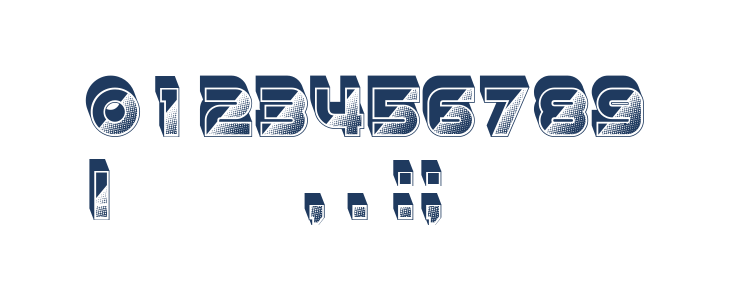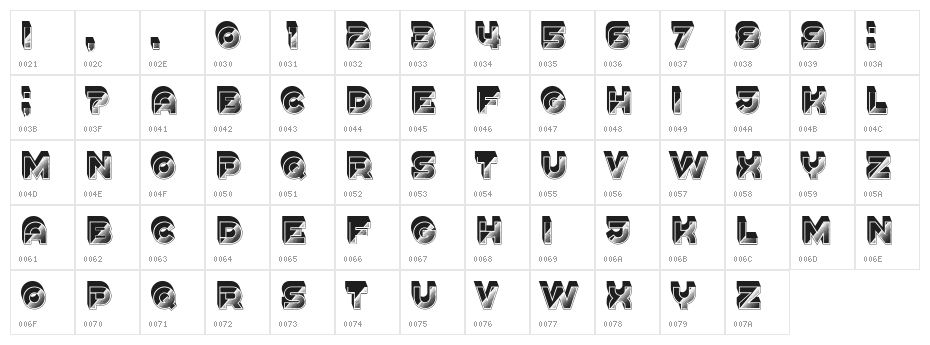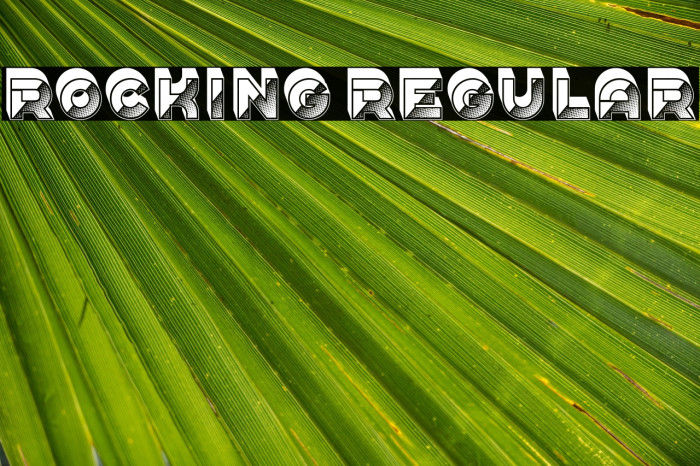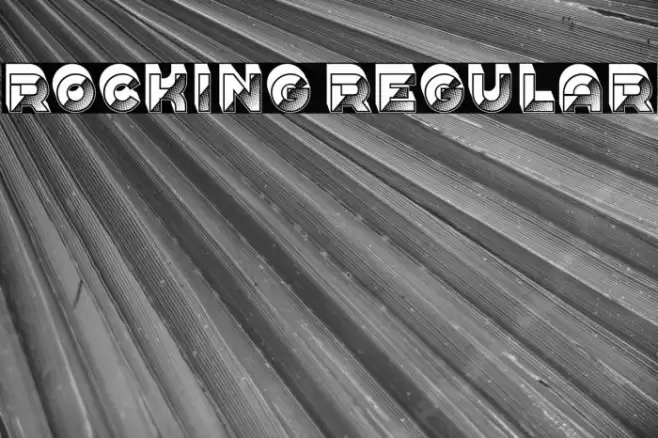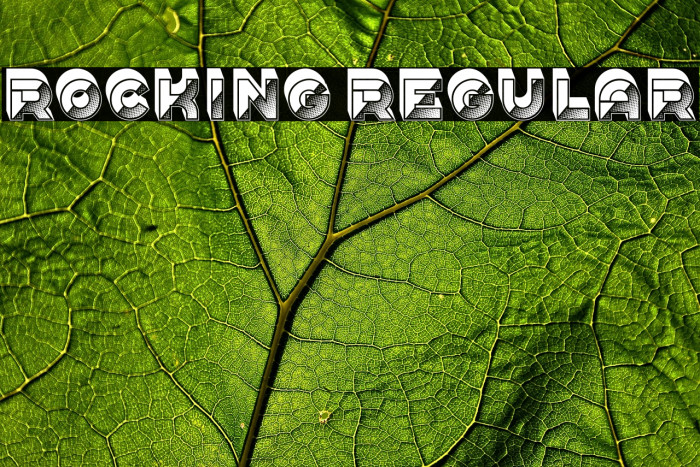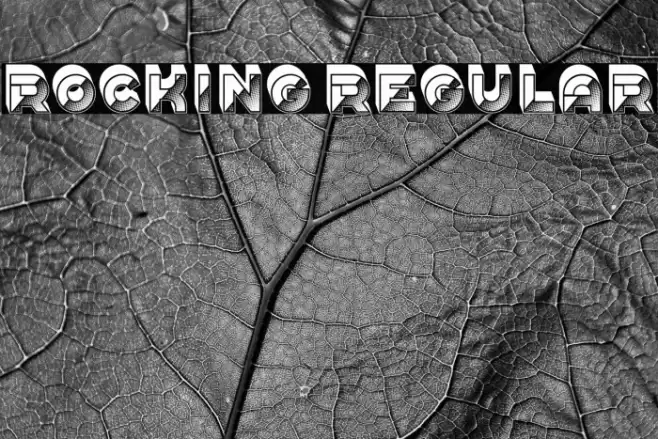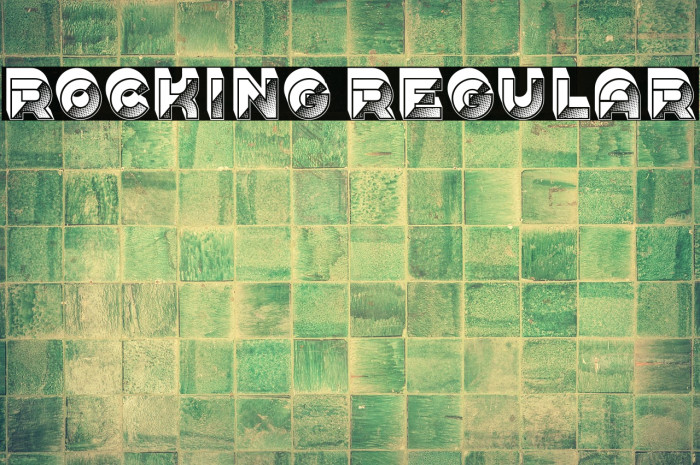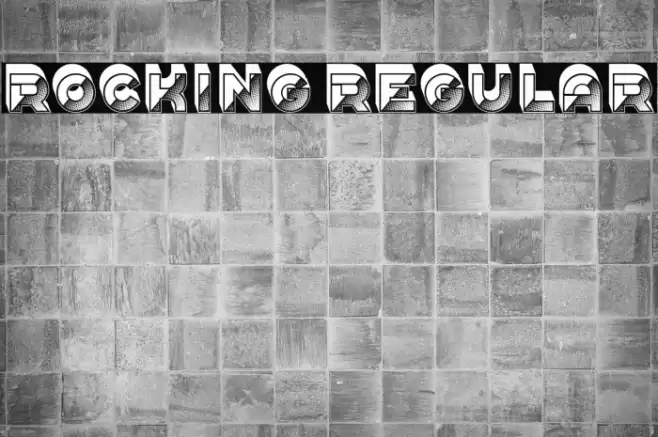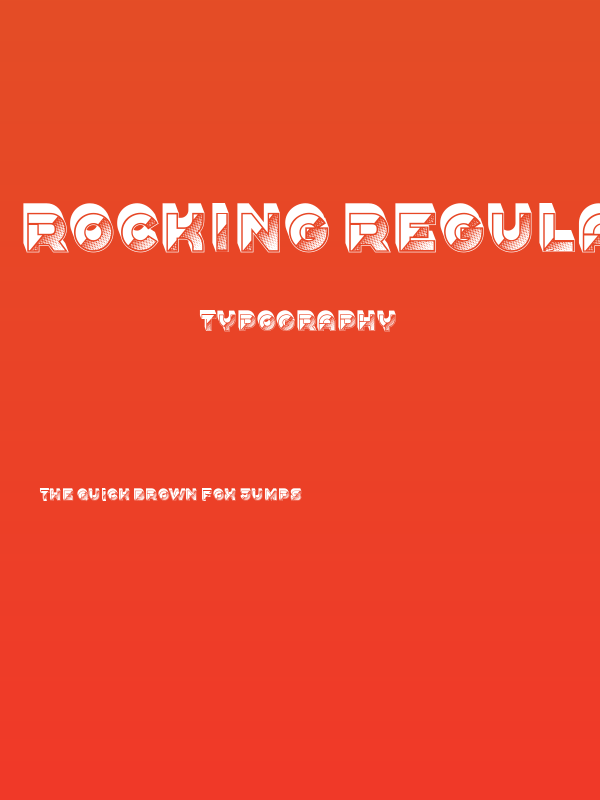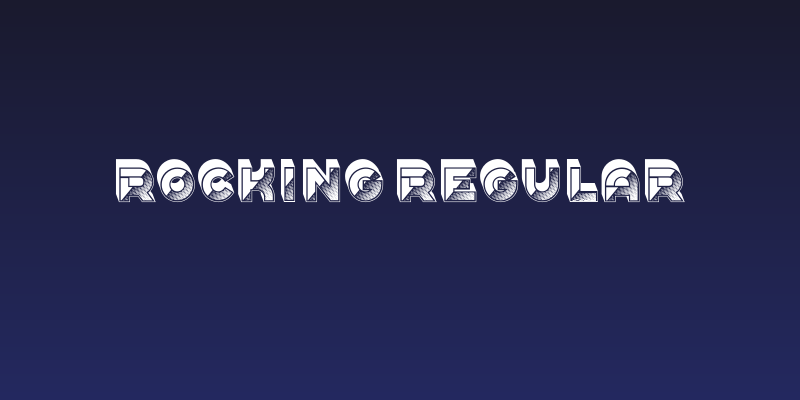
Rocking Regular Font
Rocking Regular Description
This font features a bold, three-dimensional style with a distinct geometric pattern. Each character is designed with a shadow effect that gives it a sense of depth and dimension. The letters are uppercase and have a consistent width, creating a uniform appearance. The font's unique design includes a dotted texture within each character, adding a layer of complexity and visual interest. The numbers and special characters follow the same stylistic approach, ensuring cohesion across all elements. This font is ideal for projects that require a strong, eye-catching display typeface.